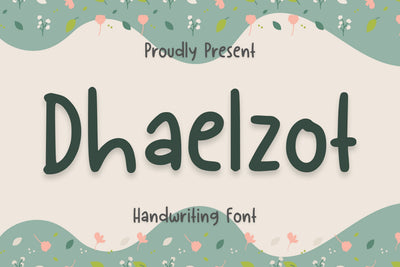
Dhaelzot Handwriting Font
Dhaelzot Handwriting Font is a unique and creative typeface that is designed to mimic the appearance of handwritten text. This font is perfect for adding a personal and artistic touch to various projects, including posters, flyers, logos, and social media graphics.
Dhaelzot Handwriting Font is ideal for a range of applications, from casual and fun designs to more formal and professional ones. It is highly legible, making it easy to read even at smaller font sizes, and it works well on both light and dark backgrounds.
Overall, Dhaelzot Handwriting Font is a versatile and charming typeface that can add a touch of personality and creativity to any design project.